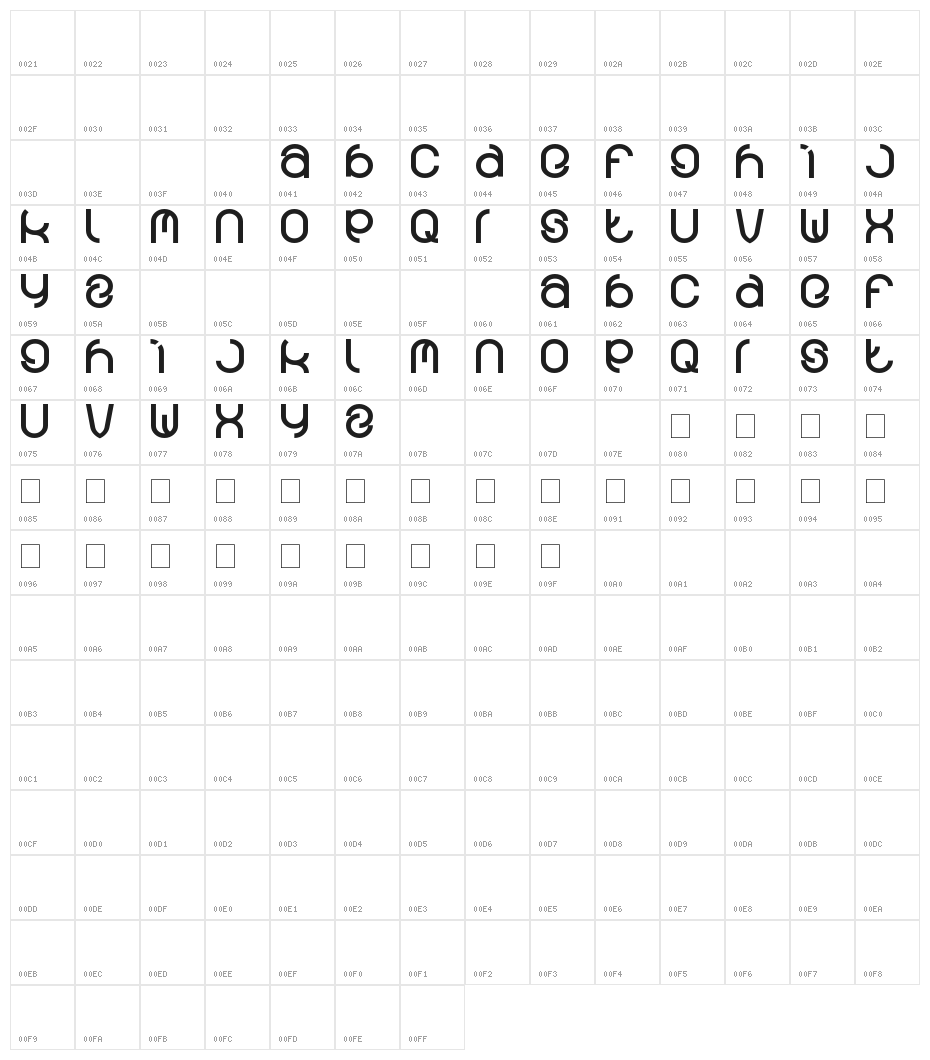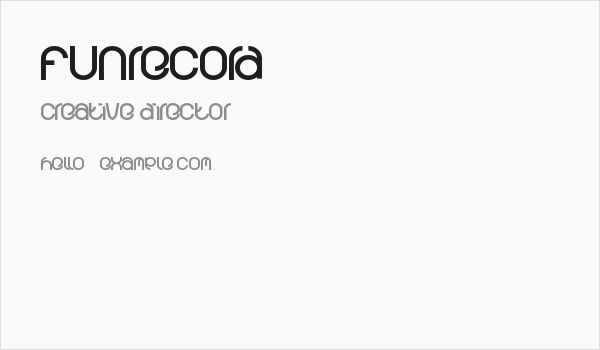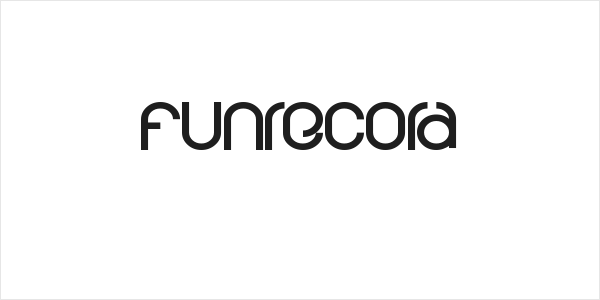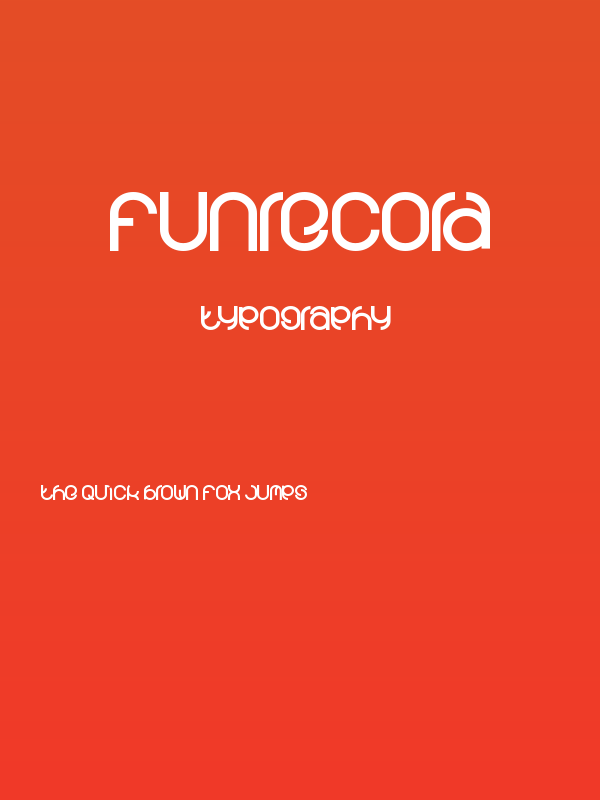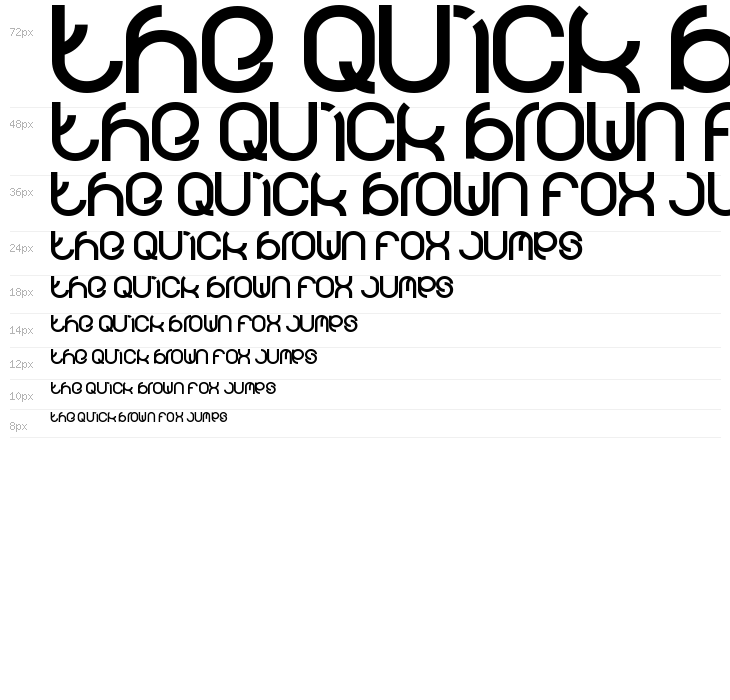
funrecord Font
funrecord Description
This font features a unique and modern design with a geometric and futuristic aesthetic. The characters are constructed with bold, rounded shapes and consistent stroke widths, creating a cohesive and visually striking appearance. The uppercase and lowercase letters share similar design elements, enhancing the uniformity of the typeface. The font's style is characterized by its clean lines and minimalistic approach, making it suitable for contemporary design projects. The absence of serifs and the uniformity in stroke width contribute to its modern and sleek look.
| Overall Style | Modern, Geometric, Futuristic |
| Use Case | Headlines, Logos, Branding |
| Proposed Projects | Ideal for branding, logos, headlines, and digital interfaces that require a modern and futuristic touch. |